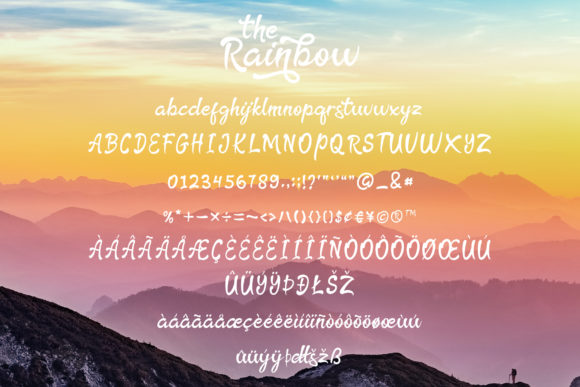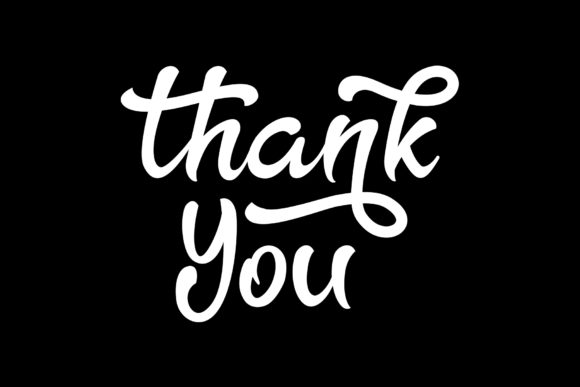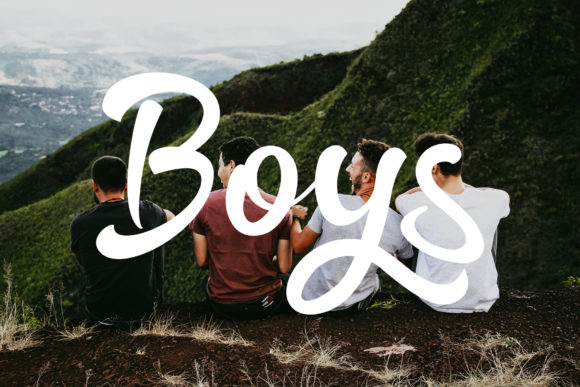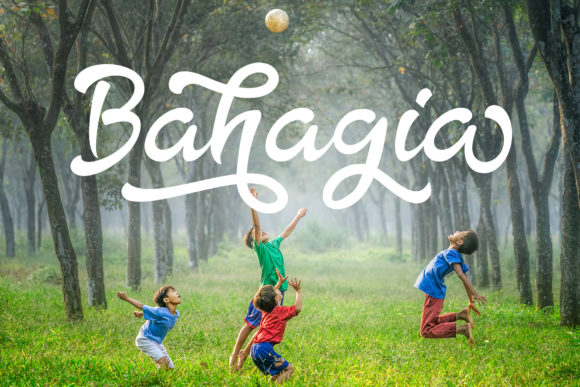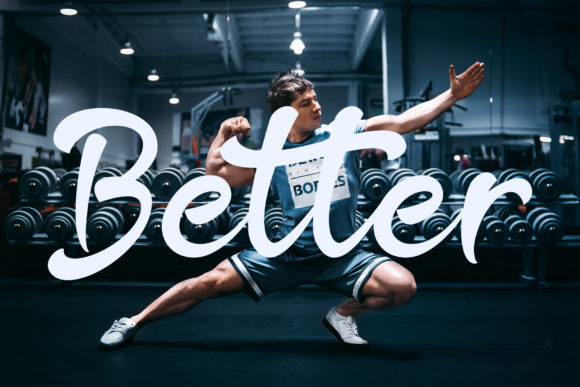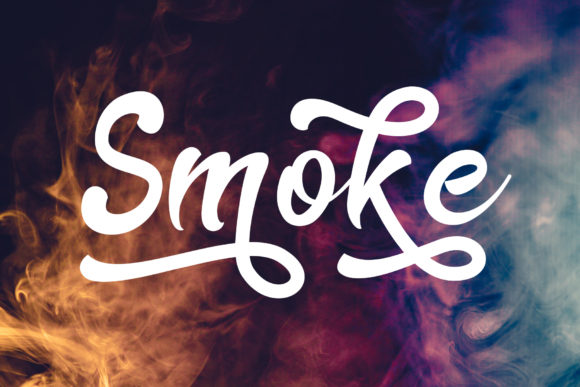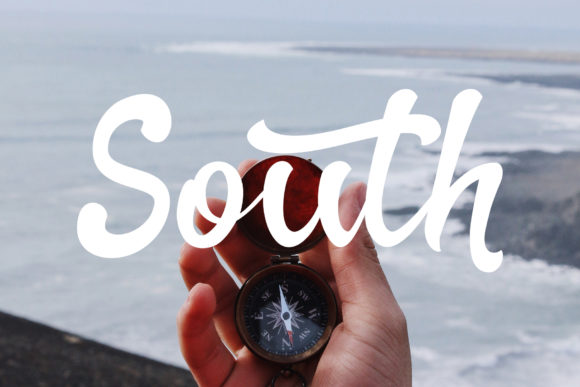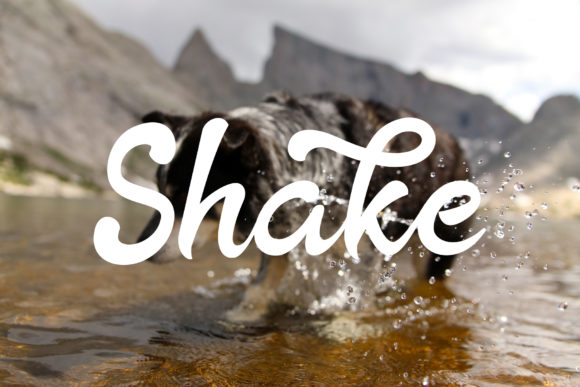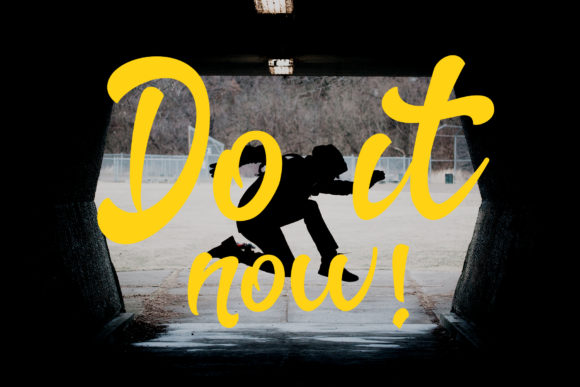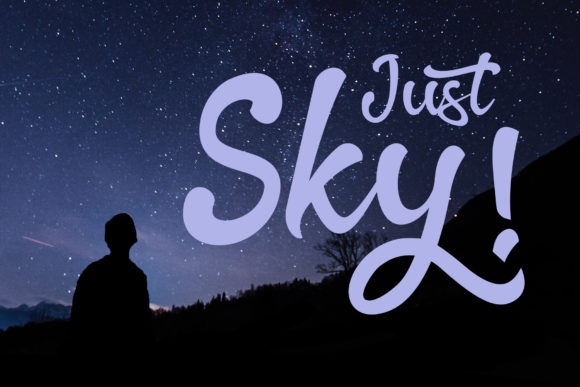
The Rainbow Font
About The Rainbow Font
The Rainbow is a modern calligraphy font. It has a clear and relaxed style which makes it perfect for various creative projects.